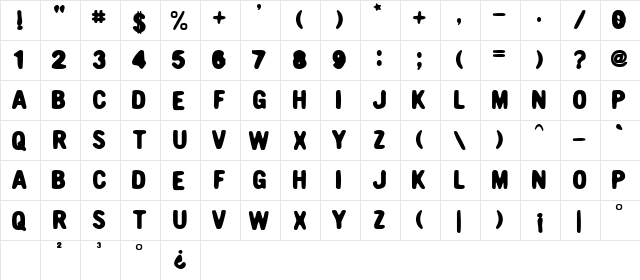
Nicotine Regular
Design Context for Nicotine Typeface
Nicotine is a composed and adaptable typeface that performs quietly and consistently across a wide range of design contexts.